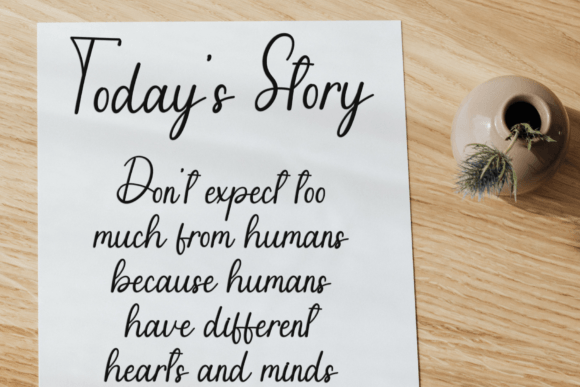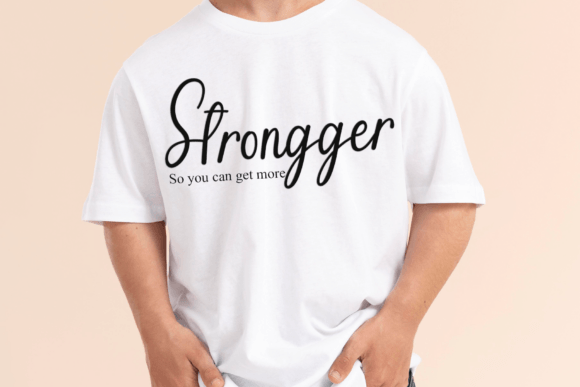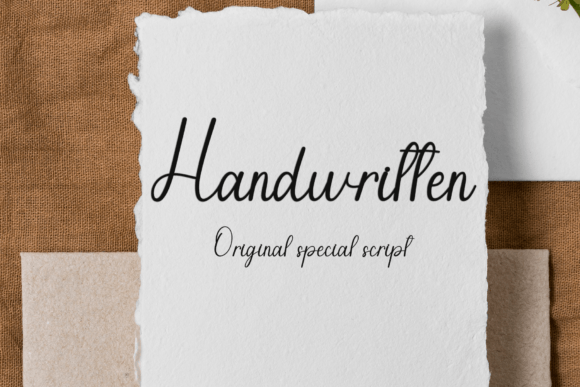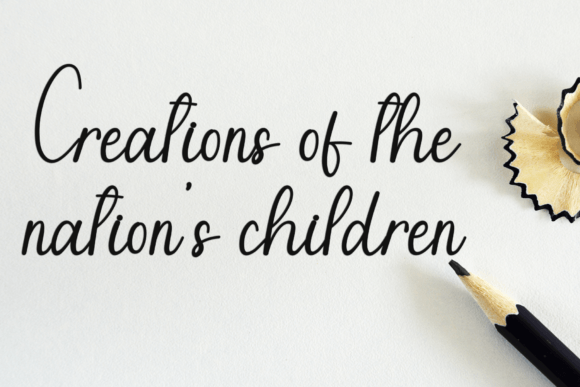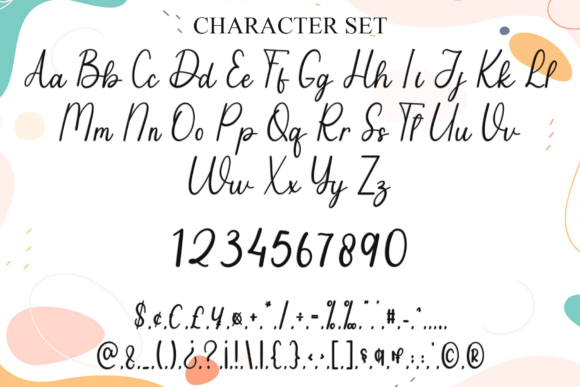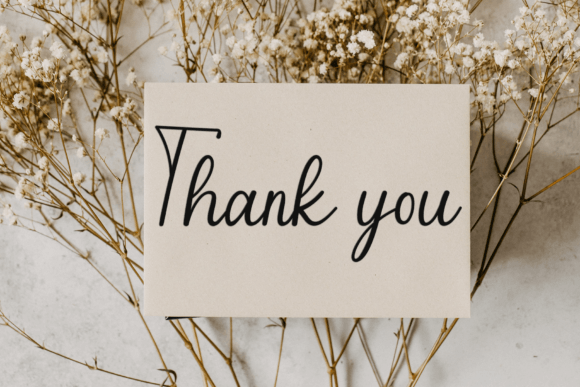
Elevate Your Designs with the Elegance of Calligraphy Fonts
Calligraphy is an art form that has been cherished for centuries, with its roots in ancient civilizations. The term “calligraphy” comes from the Greek words “kallos” meaning beauty and “graphein” meaning to write. This beautiful art form has been a cornerstone of elegant writing and design for centuries. In the digital age, calligraphy fonts have become a staple in the design world, offering a touch of sophistication and style to any project. One such font that embodies the essence of traditional calligraphy with a modern twist is the Calligraphy Font.
What is a Calligraphy Font?
Calligraphy Font is a stylish handwritten font that brings a contemporary atmosphere and impeccable form to your designs. Inspired by timeless classic calligraphy, this font strikes a perfect balance between traditional elegance and modern flair. Its varied strokes and balanced design make it an ideal choice for designers and crafters looking to add a touch of sophistication to their projects.
The Characteristics of Calligraphy Font
The Calligraphy Font boasts several characteristics that make it a standout in the world of typography:
- Contemporary yet Classic: This font seamlessly blends modern design elements with classic calligraphy, making it versatile for various design applications.
- Balanced and Varied: The font features balanced strokes and varied letterforms, ensuring that your text remains legible and aesthetically pleasing.
- Elegant and Sophisticated: With its roots in traditional calligraphy, this font exudes elegance and sophistication, perfect for projects that require a high-end feel.
Applications of Calligraphy Font
The versatility of the Calligraphy Font makes it suitable for a wide range of design applications:
- Wedding and Event Design: Add a touch of romance and elegance to wedding invitations, event posters, and other ceremonial materials.
- Branding and Logo Design: Elevate your brand’s identity with a sophisticated and memorable logo that stands out from the crowd.
- Packaging Design: Enhance the visual appeal of product packaging, making it more attractive and premium.
- Digital and Print Media: Use the Calligraphy Font in digital media, such as social media graphics, and print materials like brochures and flyers.
Tips for Using Calligraphy Fonts Effectively
To make the most of the Calligraphy Font, consider the following tips:
- Pair with Simple Fonts: Combine the Calligraphy Font with simpler fonts to create visual hierarchy and balance in your design.
- Use for Headlines and Titles: The Calligraphy Font is perfect for headlines and titles, where its elegance and sophistication can shine.
- Experiment with Colors: While the font itself is a focal point, experimenting with different colors can enhance its beauty and make it more striking.
The Calligraphy Font is a beautiful addition to any designer’s toolkit, offering a blend of classic elegance and modern sophistication. Whether you’re working on a wedding invitation, a brand logo, or packaging design, this font can elevate your project to new heights. With its balanced and varied strokes, it brings a touch of impeccable form and style to your designs. By incorporating the Calligraphy Font into your projects, you’re sure to create visually stunning and memorable pieces that leave a lasting impression.